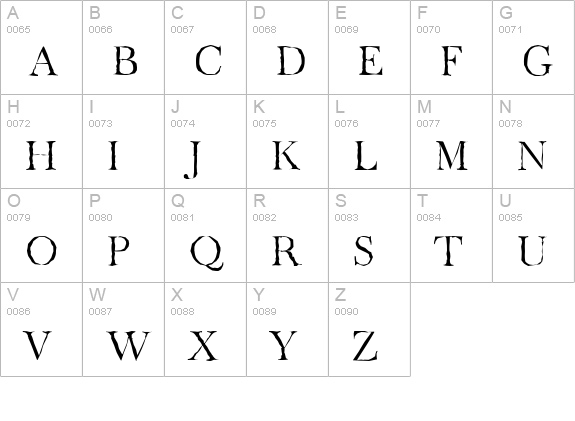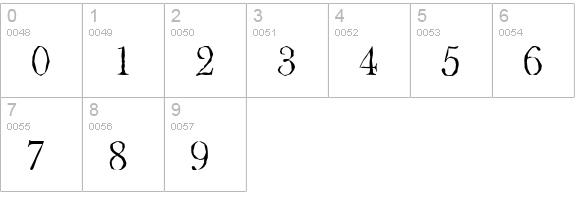
BaskerOldAntique-Light-Regular is a refined, elegant variant in the BaskerOldAntique typeface family \xE2\x80\x94 well suited to elegant body text, refined sub-headings, and luxury branding.
BaskerOldAntique-Light-Regular is a classic and elegant serif font that exudes a timeless charm and sophistication. Its delicate serifs and graceful curves give it a refined and vintage look, perfect for adding a touch of old-world charm to your designs. This font is versatile and can be used for a variety of design projects, from invitations to branding to editorial layouts. And the best part? BaskerOldAntique-Light-Regular is available for free download at FontsMarket.com. Yes, you read that right - this exquisite font can be yours at no cost, allowing you to add a touch of elegance to your creations without breaking the bank. Don't miss out on this opportunity to elevate your designs with this beautiful typeface that captures the essence of traditional typography. Download BaskerOldAntique-Light-Regular today and let your creativity shine!